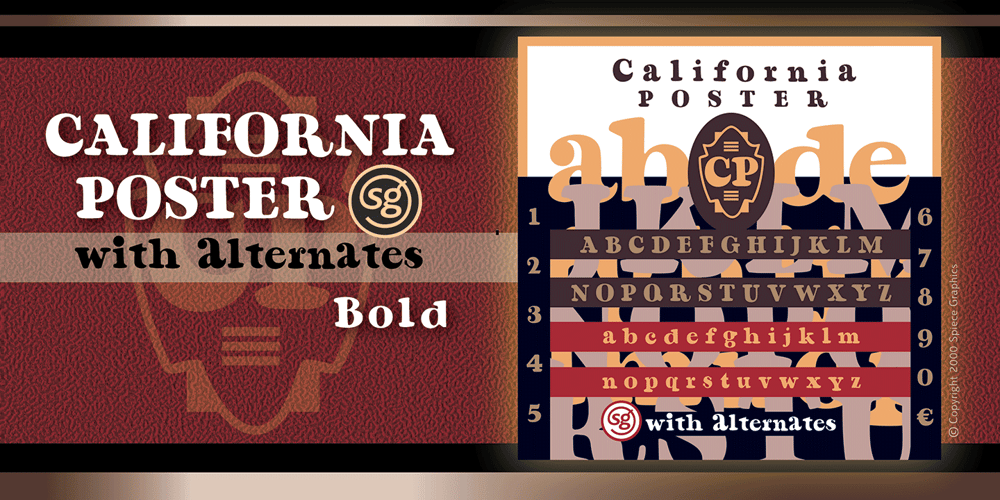
California Poster SG Font Family was designed by Jim Spiece and published by Spiece Graphics. California Poster SG contains 1 styles and family package options. Known to many eastern artists as the California Poster Letter because it originated in the West, this old 1930s style has reappeared in digital form. Carl Holmes, in his wonderful book on old lettering styles, pays tribute to this uniquely American design. Faintly reminiscent of the lettering of Fred G. Cooper, California Poster Bold is at times wildly exaggerated and boisterous. Letters appear to be inflated and loopy. The design might aptly be described as a kind of rollicking Cooper Black (Oswald Bruce Cooper). An extensive range of alternates and figures has been provided for your convenience. California Poster Bold is now available in the OpenType Std format. Some new characters have been added to this OpenType version as stylistic alternates and historical forms. These advanced features work in current versions of Adobe Creative Suite InDesign, Creative Suite Illustrator, and Quark XPress. Check for OpenType advanced feature support in other applications as it gradually becomes available with upgrades.